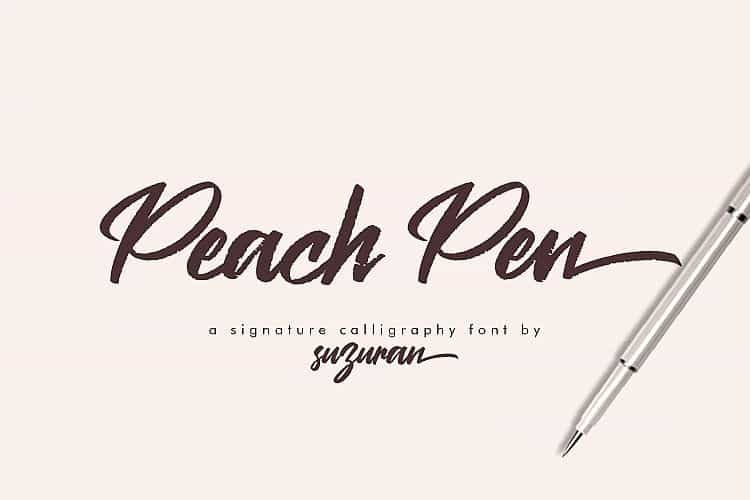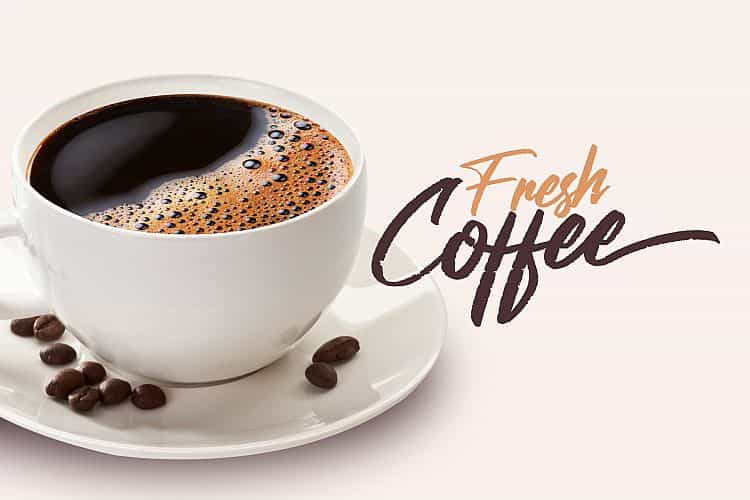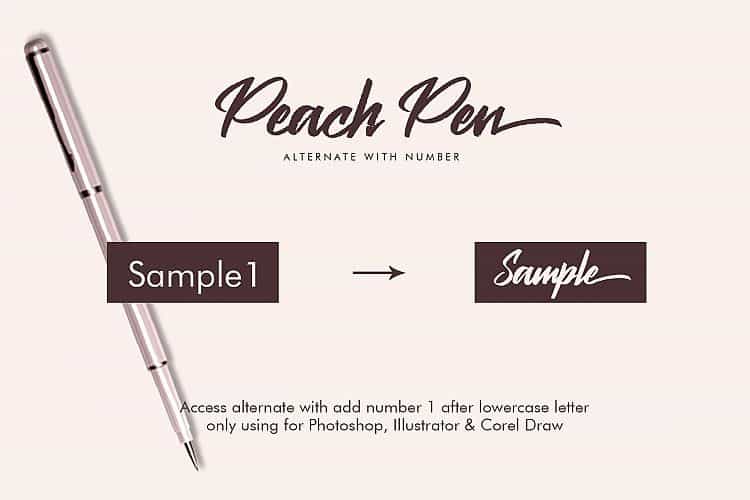
Discover Peach Pen Calligraphy Font, part of the Commercial Calligraphy collection—a versatile and unique font perfect for adding a personal touch to your projects. Download it for free and enjoy crafting designs with style, from invitations to social media posts. This font is available exclusively for personal use, giving you the freedom to create without limits. Unlock your creativity with Peach Pen Calligraphy Font today!
Peach Pen script is a type of font that is very fresh and unique style handmade + bonus font, the Night in Kansas and Free Pen Script for your project. The Peach Pen script is absolutely great for logo, stationery, poster, clothing, branding, wedding invitation, card, tagline, layout design, and many other things !!.